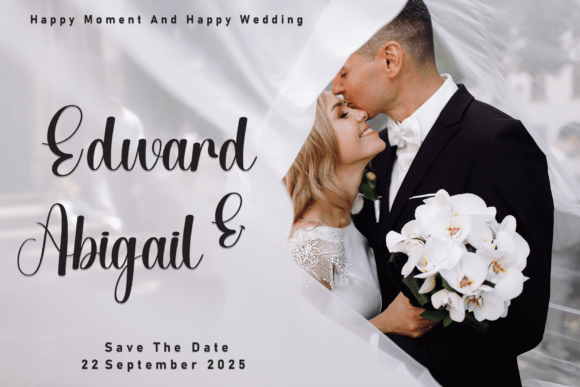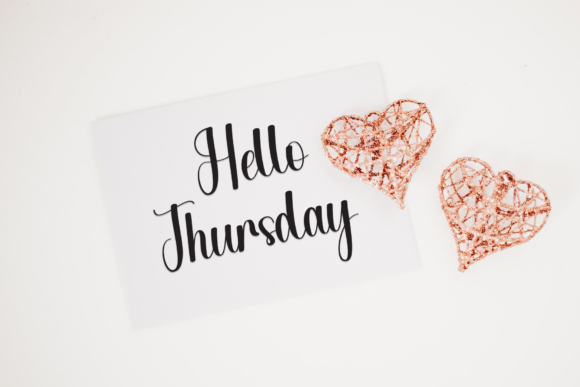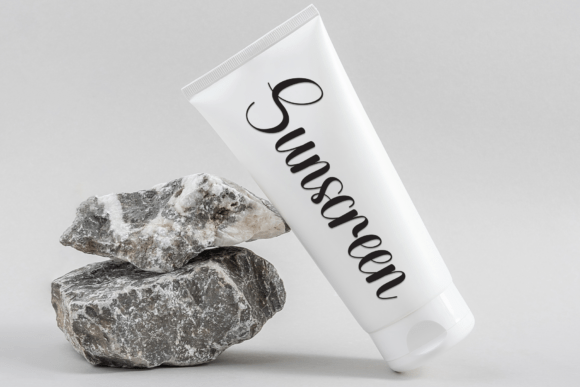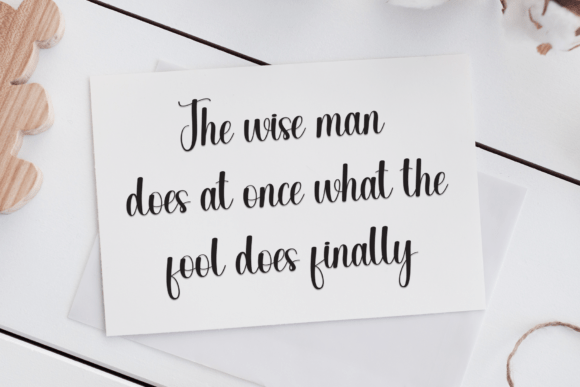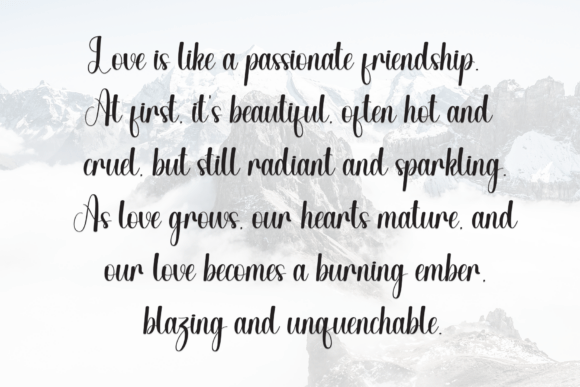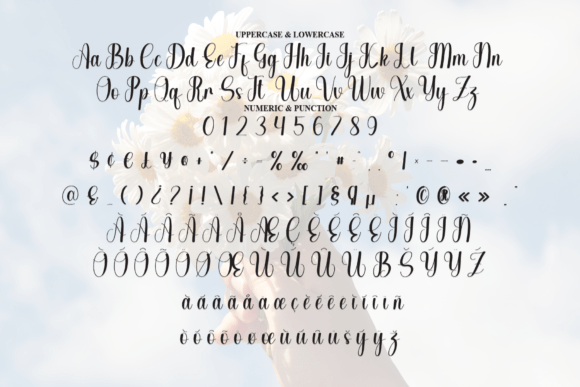
Introducing Delightful Font: The Joyful Allure of Handwritten Display Typography
Are you tired of using the same old fonts in your designs? Do you want to add a touch of warmth and charisma to your creations? Look no further than ‘Delightful’, a handwritten display font that is sure to bring a smile to your face. With its happy-go-lucky charm and heartening appeal, ‘Delightful’ is the perfect choice for designers and crafters looking to add a dash of joy to their work.
The Perfect Font for Tender Nuptial Invites and Heartfelt Greeting Cards
‘Delightful’ font is specifically designed to make your designs stand out from the crowd. Its unique, handwritten style is perfect for crafting tender nuptial invites, heartfelt greeting cards, and any other design that requires an infusion of happiness. Whether you’re a designer, crafter, or DIY enthusiast, ‘Delightful’ font is sure to become your go-to choice for all your creative projects.
Adding Depth and Liveliness to Your Designs
What sets ‘Delightful’ font apart from other fonts is its ability to spin every letter into a narrative. Each letter is carefully crafted to infuse a lively ambience into your designs, adding depth and character to your creativity. With ‘Delightful’ font, you can add a distinct, affectionately playful appeal to your designs that will leave a lasting impression on your audience.
Key Features of Delightful Font
- Handwritten display font: ‘Delightful’ font is a handwritten display font that radiates warmth and charisma.
- Happy-go-lucky charm: This font has a happy-go-lucky charm that makes it perfect for designs that require an infusion of happiness.
- Perfect for nuptial invites and greeting cards: ‘Delightful’ font is specifically designed for crafting tender nuptial invites and heartfelt greeting cards.
- Unique and playful appeal: This font adds a distinct, affectionately playful appeal to your designs.
How to Use Delightful Font in Your Designs
- Nuptial invites and wedding stationery
- Heartfelt greeting cards and gift tags
Tips and Tricks for Getting the Most Out of Delightful Font
Here are some tips and tricks for getting the most out of ‘Delightful’ font:
- Experiment with different colors: ‘Delightful’ font looks great in a variety of colors, so don’t be afraid to experiment and find the perfect hue for your design.
- Pair with other fonts: ‘Delightful’ font pairs well with other fonts, so try combining it with a sans-serif font for a unique look.
- Use it sparingly: While ‘Delightful’ font is perfect for headlines and titles, it can be overwhelming if used too much. Use it sparingly to add emphasis and visual interest to your design.